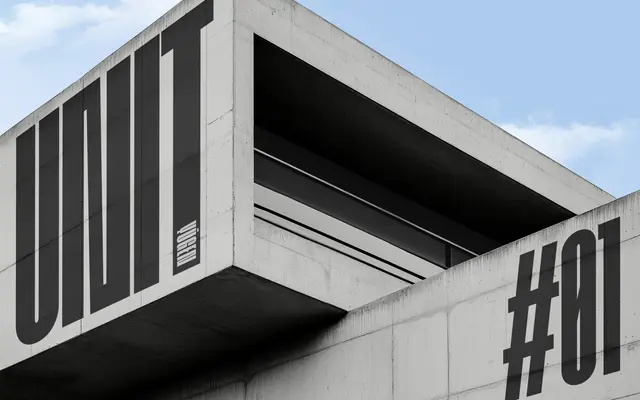
A condensed display sans in six weights, built around compressed counters and uniform structure for high-density, impactful typography.
Inspired by the Japanese philosophical concept of mysterious profundity, this condensed sans uses minimal stroke modulation and consistent rhythm across six weights from Thin to Bold. Compressed counters and an architectural regularity make it well suited to brand identities and editorial headlines where presence and density are the brief. Glyph coverage includes South Slavic Latin characters, extending its reach beyond standard Western European sets.
A condensed display sans with minimal stroke modulation and compressed counters, designed for high-impact typographic work rather than extended text setting.